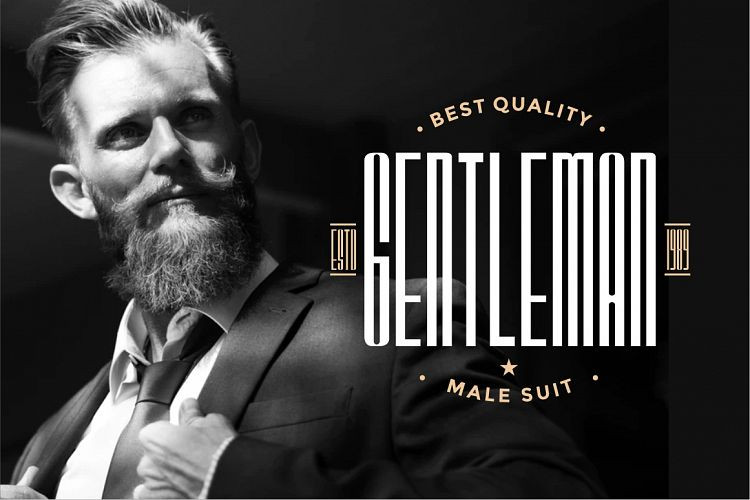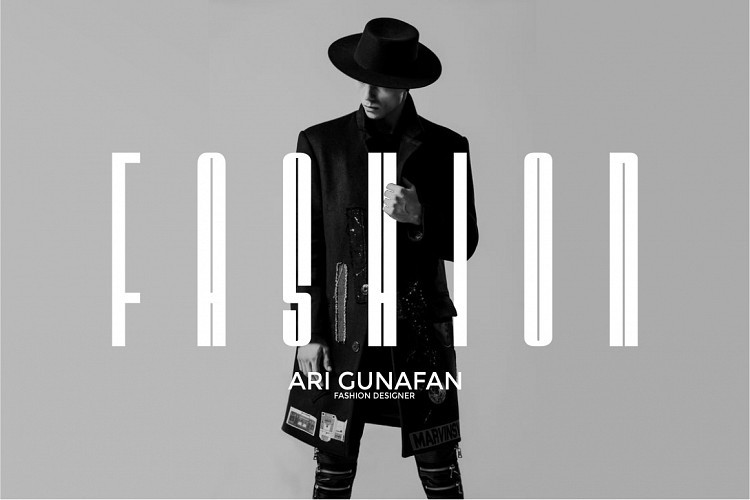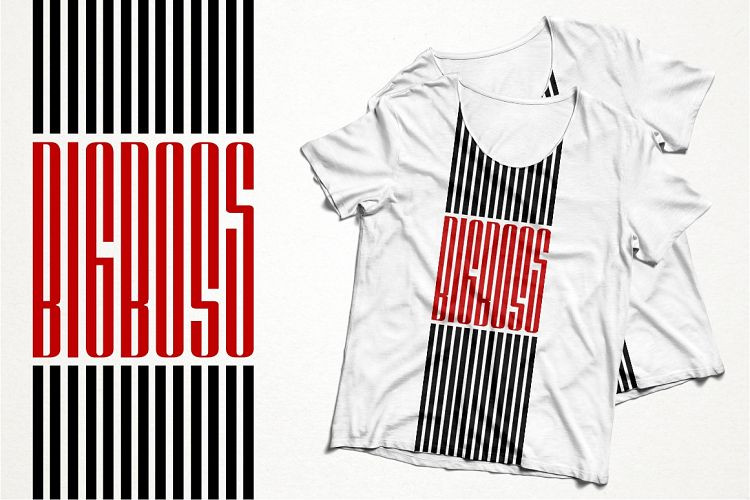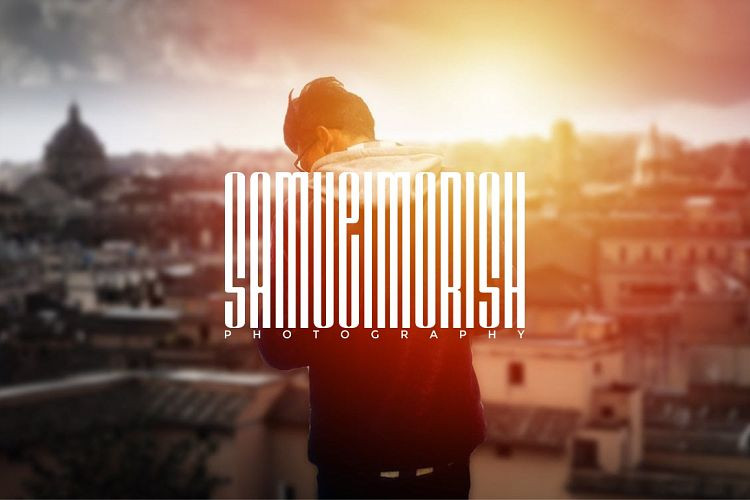
BARSTRIP Ultra Condensed Font
BARSTRIP Font is a new display typeface created by PutraCetol Studio. BARSTRIP Ultra Condensed Font is inspired by barcode symbols that are high and neatly arranged. BAR STRIP includes in two styles (regular and bold) This tyepeface is Unique and very suitable for logos, Tshirt, apparel, quote, handwritten quotes, product packaging, tittle header, poster, merchandise, social media, labels, branding & greeting cards.